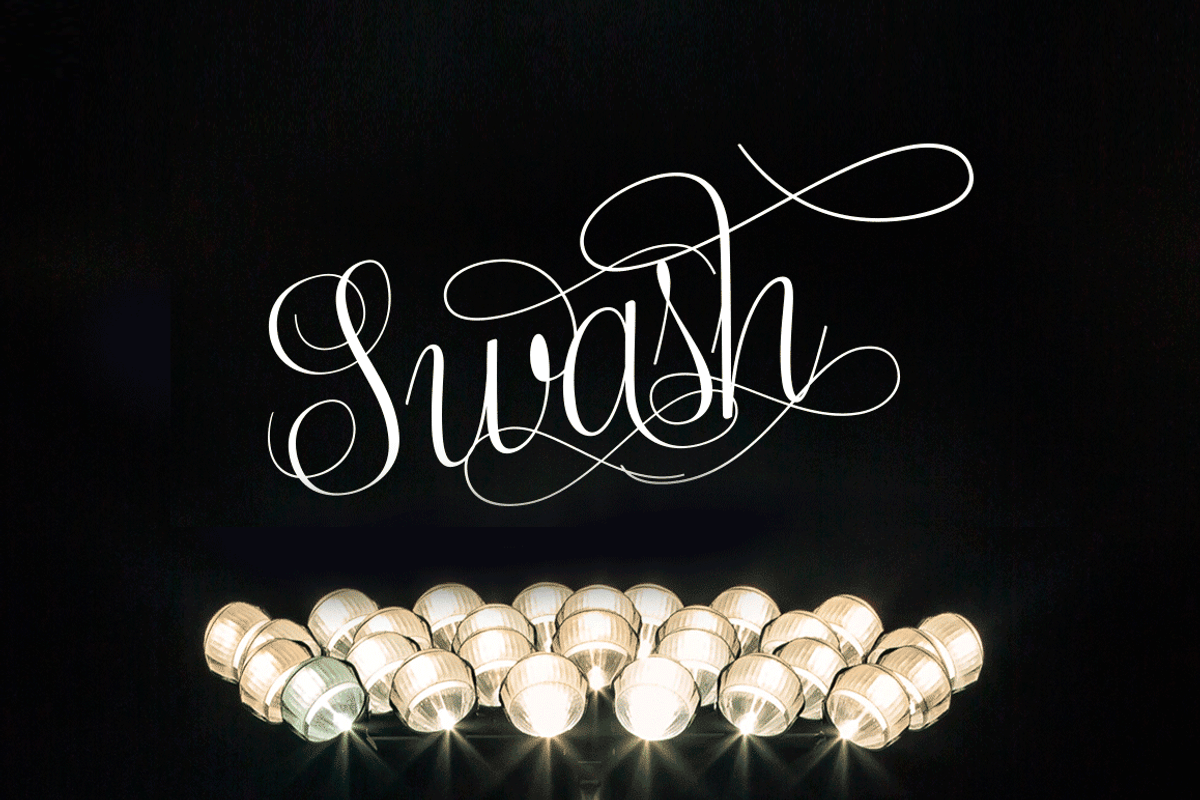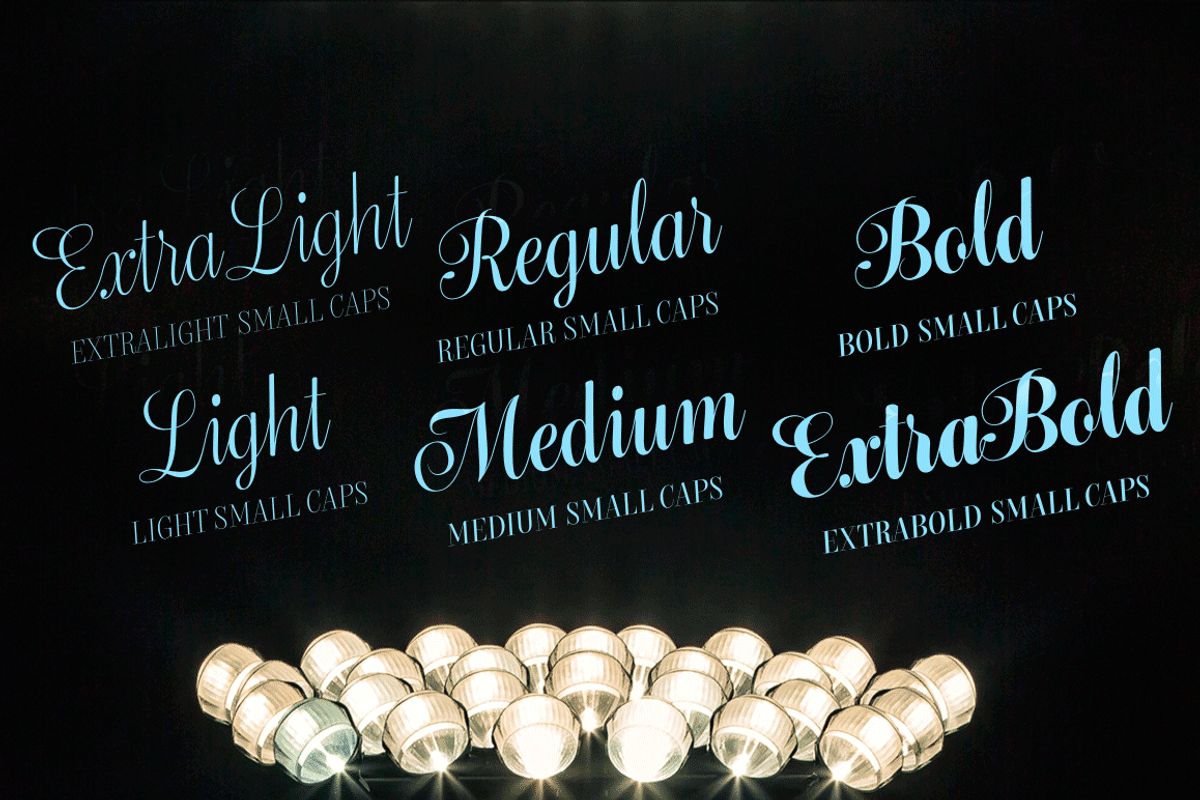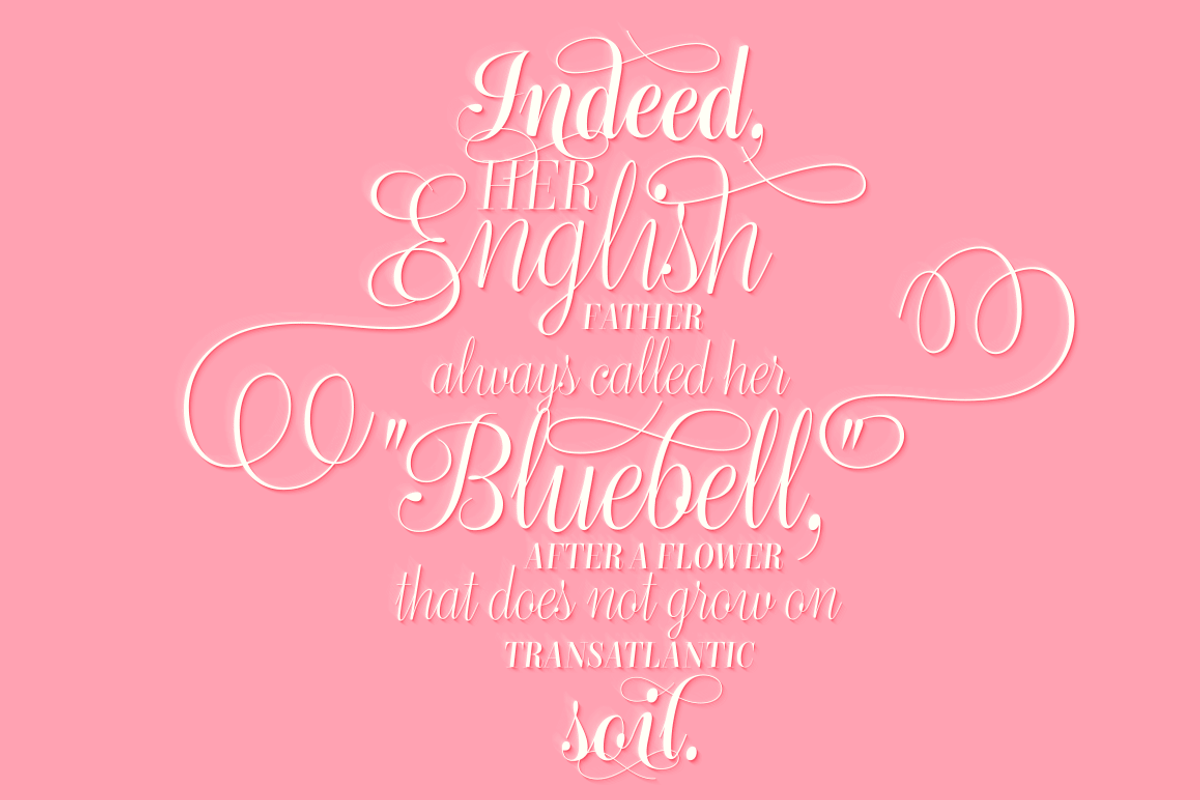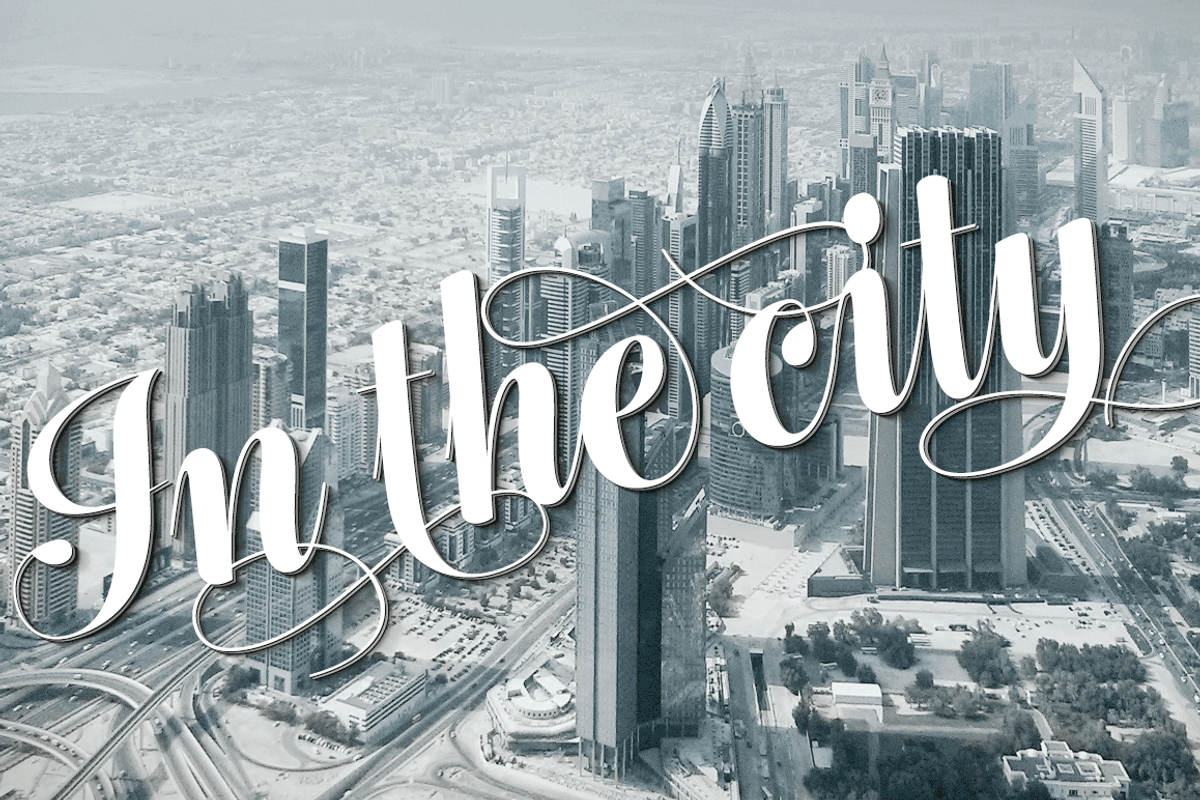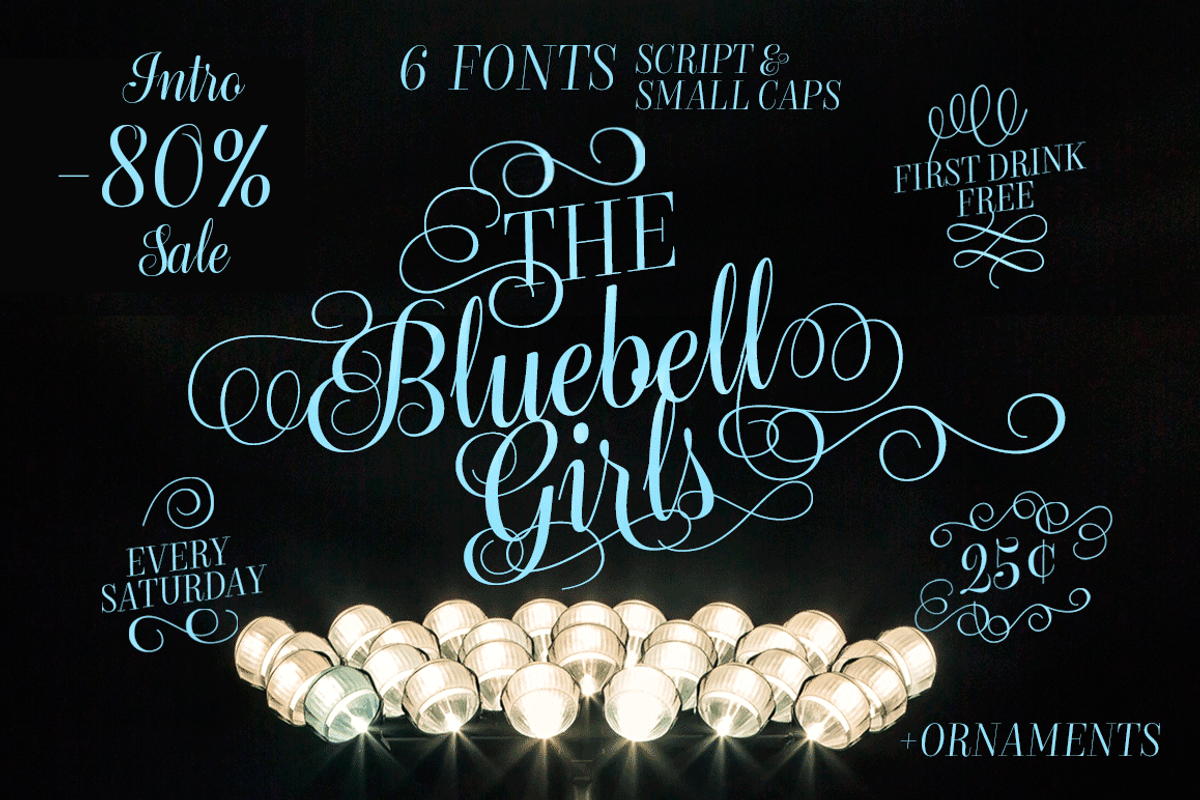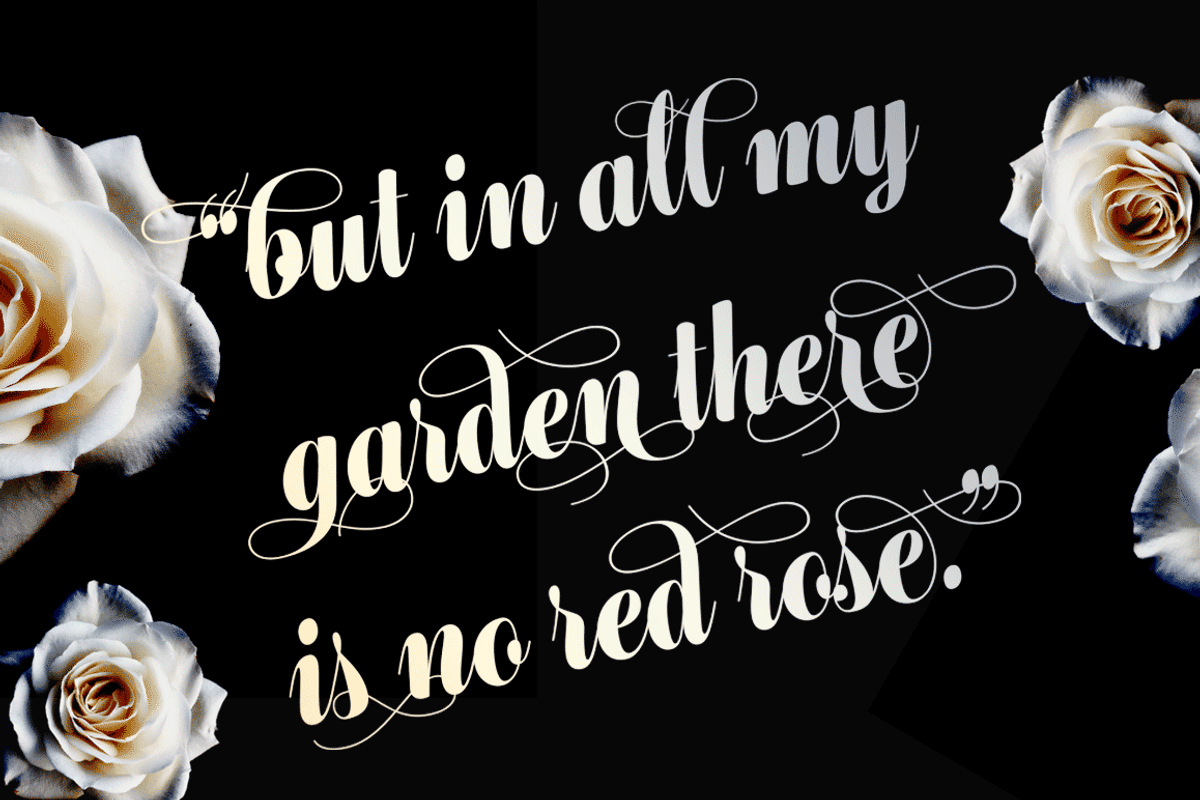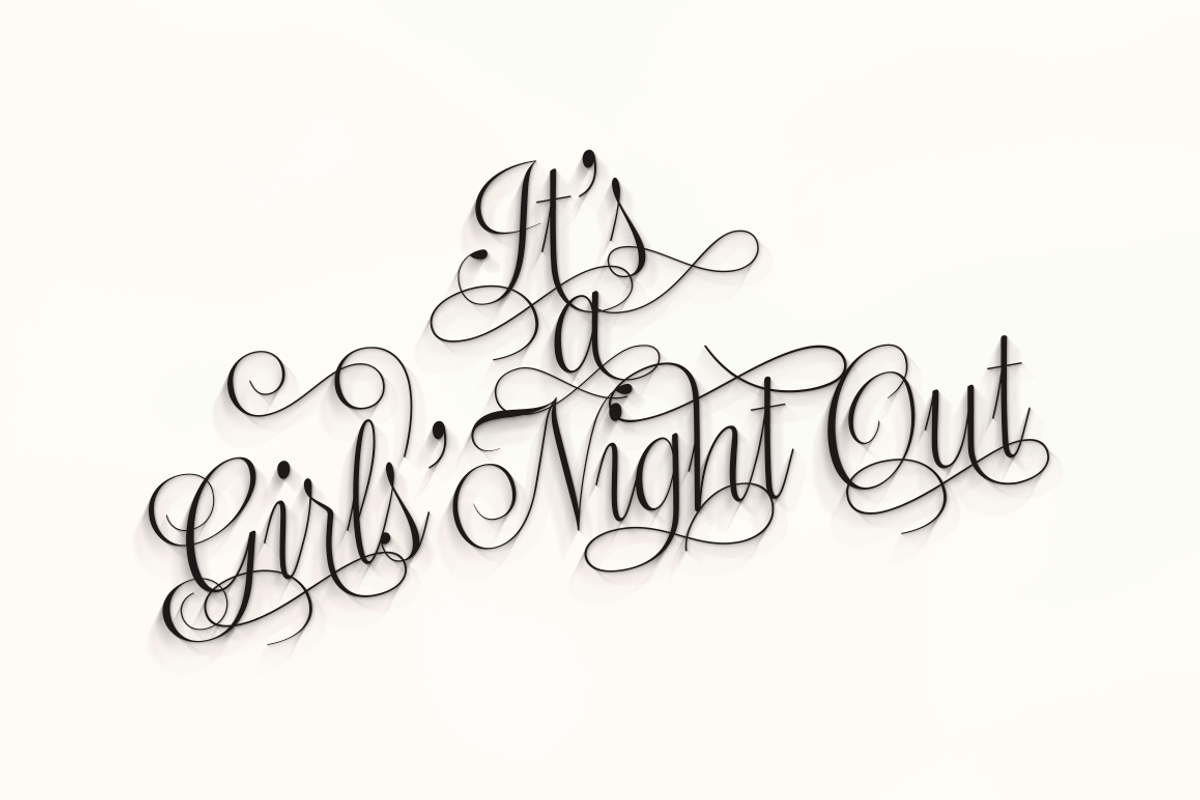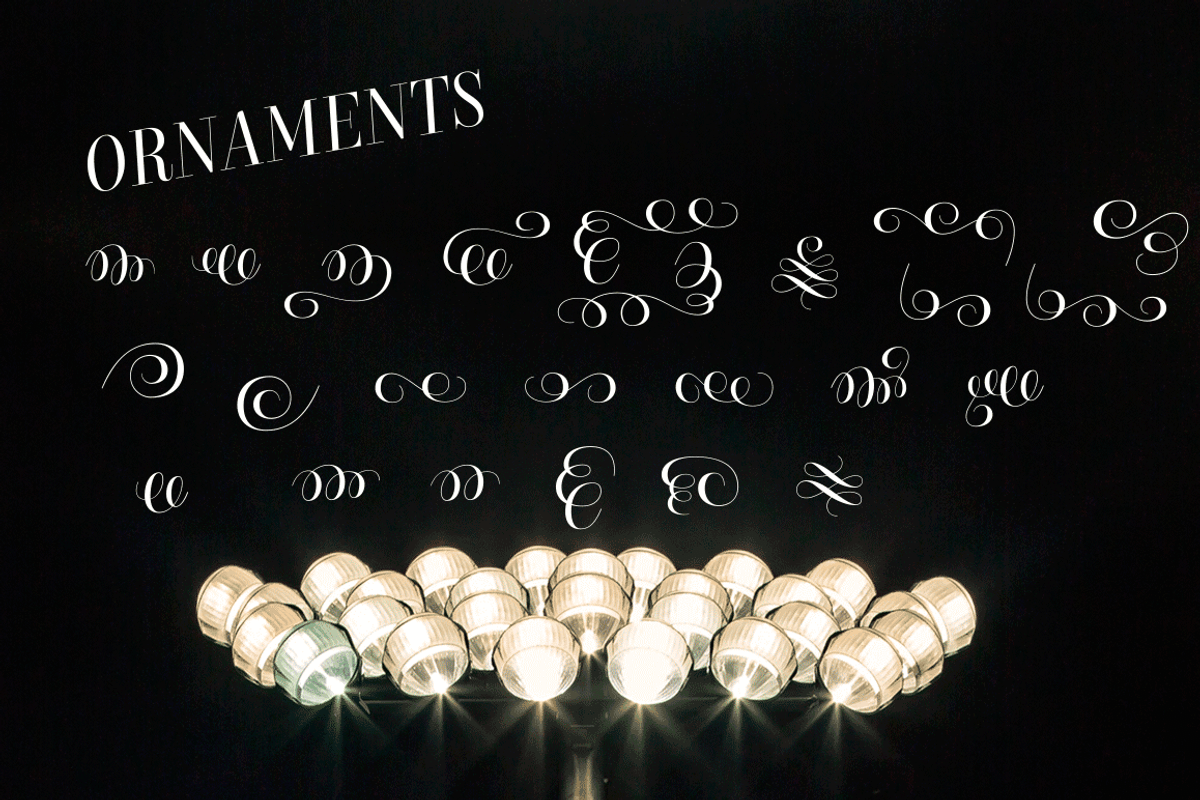
Bluebell - 6 fonts -Sale by Fenotype is a font selected for branding, posters, packaging, typography.
- BluebellSALE Script Family - six fonts Each font contains Small Caps OpenType feature -Capital letters that play together with the script Op
- It comes with six weights from extra light to extra bold, all of them maintaining the distinct high contrast.
- Rich with Open Type features, Bluebell includes Swash & Stylistic alternates, automatic ligatures, old style figures and small caps that wor
- Each font also comes with a set of ornaments that are found in the glyph palette.
- Swash, Stylistic Alternates, Automatic Ligatures
- Ornaments A pack of swirly swooshes and swashes that comes in each weight
- OldStyle numerals OpenType feature